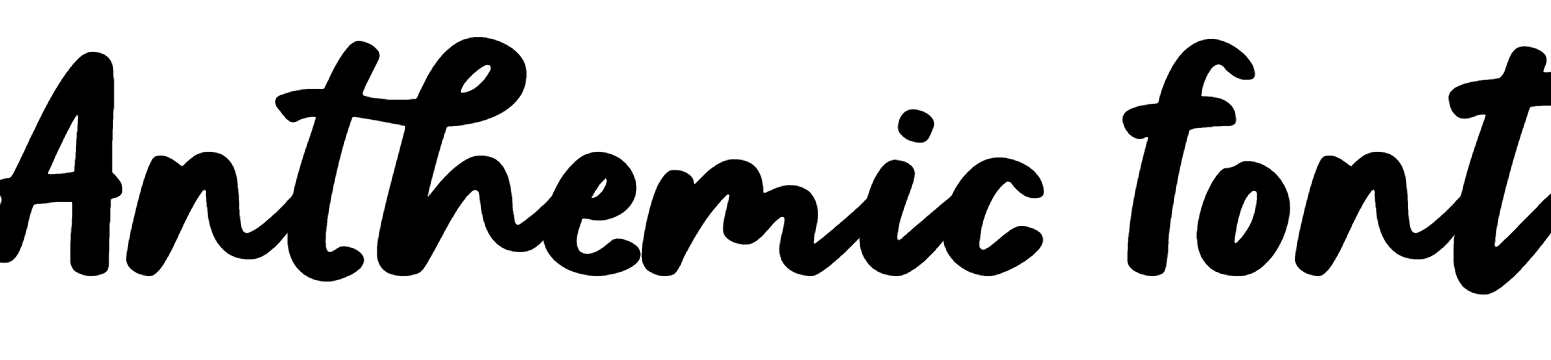
Aldy Sidik designed Anthemic, a timeless, bold script typeface, and released it through the Epiclinez foundry. It seamlessly blends a handwritten flow with retro Americana aesthetic elements, heavily reminiscent of classic vintage baseball scripts.
Anthemic
Anthemic is a handwritten font created by Aldy Sidik and released through Epiclinez (2020).
- Designer: Aldy Sidik
- Publisher: Epiclinez